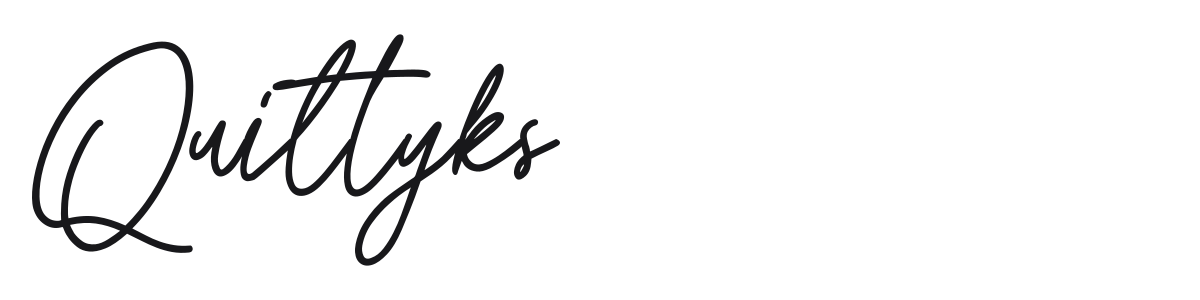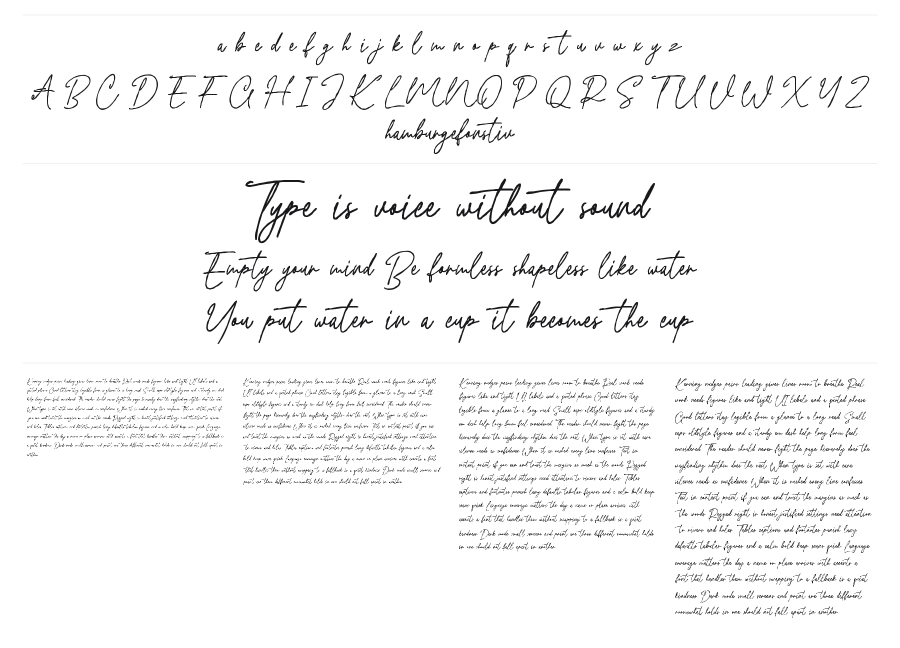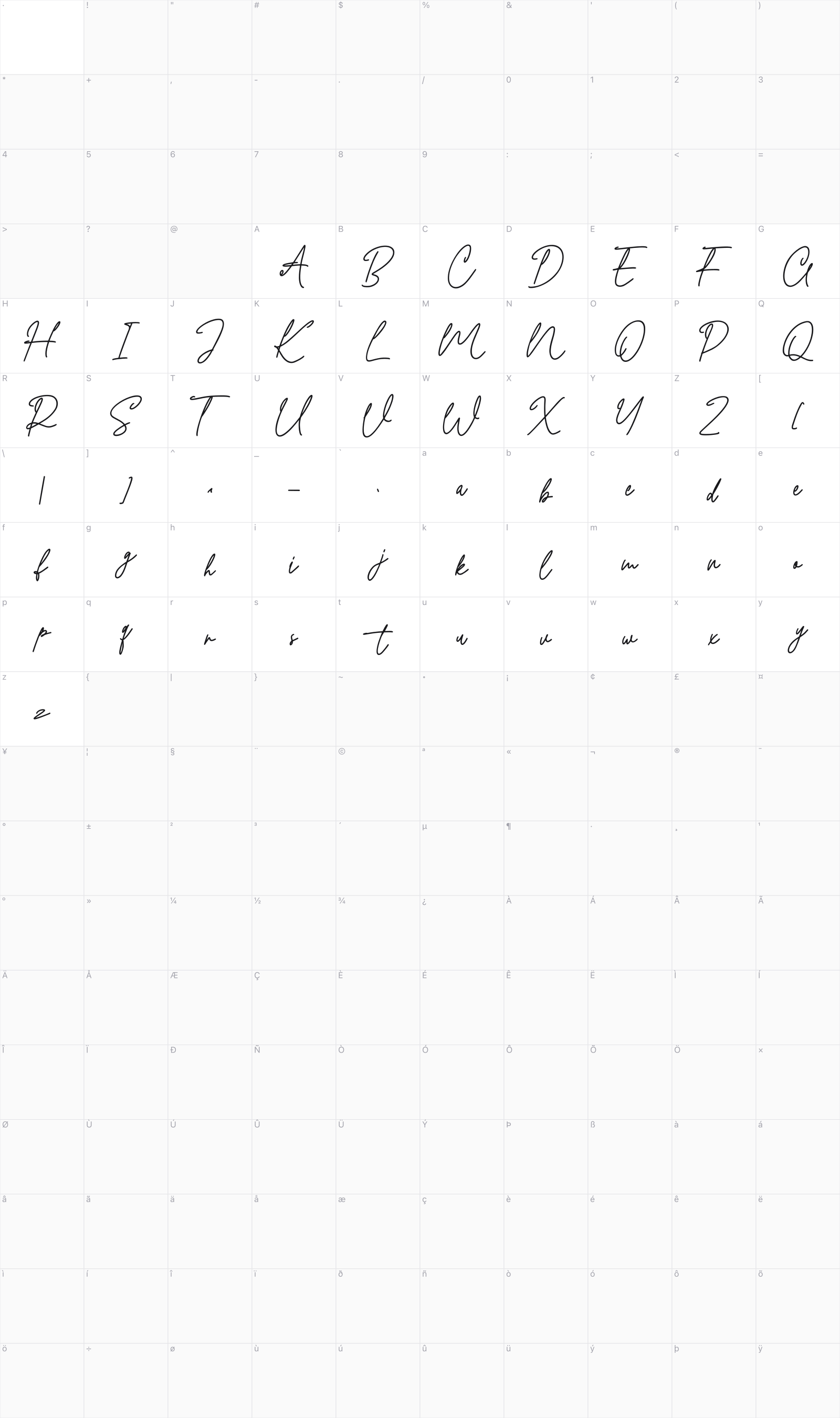
Quiltyks
Quiltyks is a flowing casual script with a light, airy stroke and long connecting sweeps that give it a natural, pen-written quality. The forward lean and looping terminals keep it feeling spontaneous without losing legibility at headline sizes. It suits branding and packaging work where a personal, handcrafted touch matters.